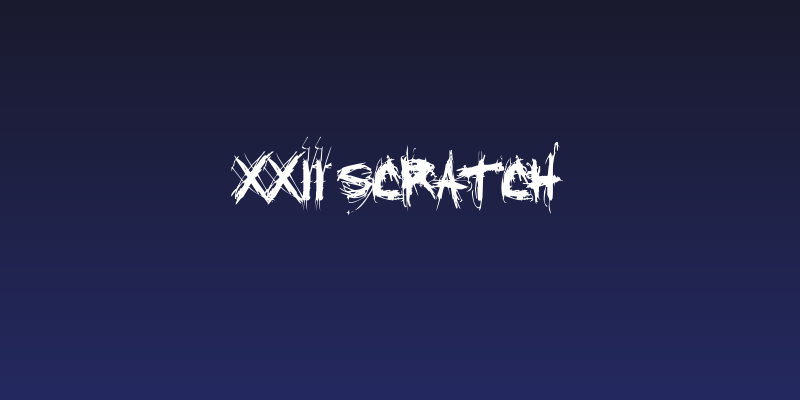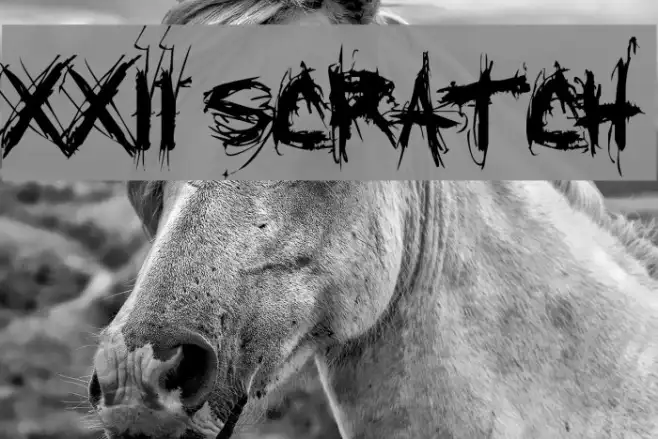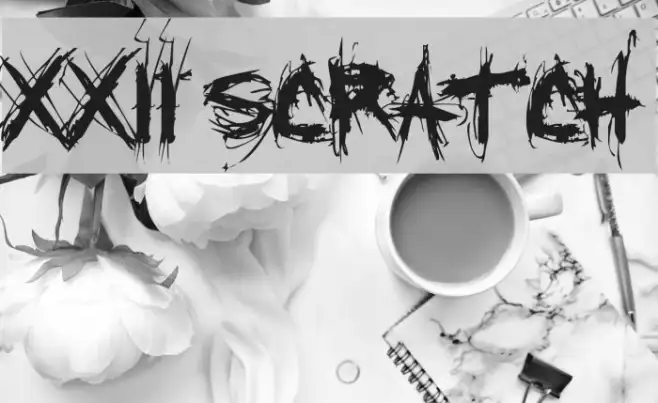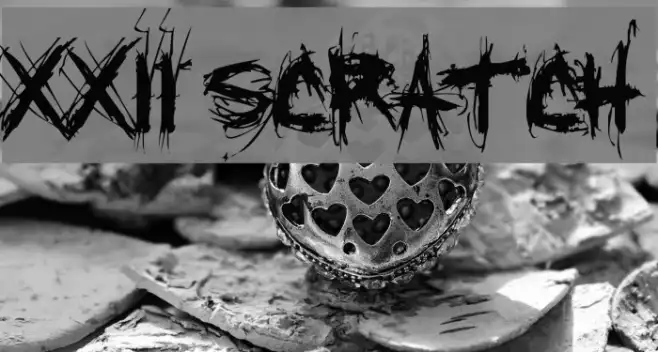
XXII SCRATCH Font
XXII SCRATCH Description
This font features a highly distressed and chaotic appearance, with each character appearing as if it has been scratched or clawed onto the surface. The strokes are irregular and jagged, giving it an aggressive and raw aesthetic. The uppercase and lowercase letters maintain this rough texture, creating a sense of movement and energy. The numbers and special characters follow the same design principle, ensuring consistency across the typeface. This font is ideal for projects that require a bold and edgy look, such as horror-themed designs, punk rock album covers, or any creative work that aims to convey intensity and rebellion.
| Proposed Projects | Horror-themed designs, punk rock album covers, rebellious art projects. |